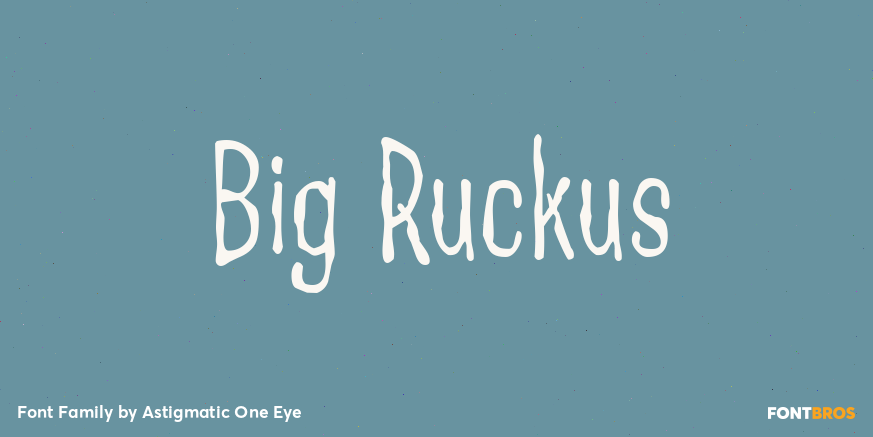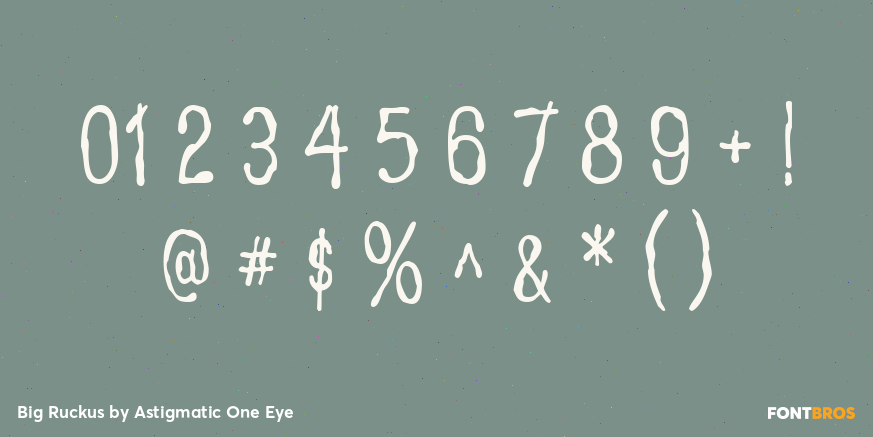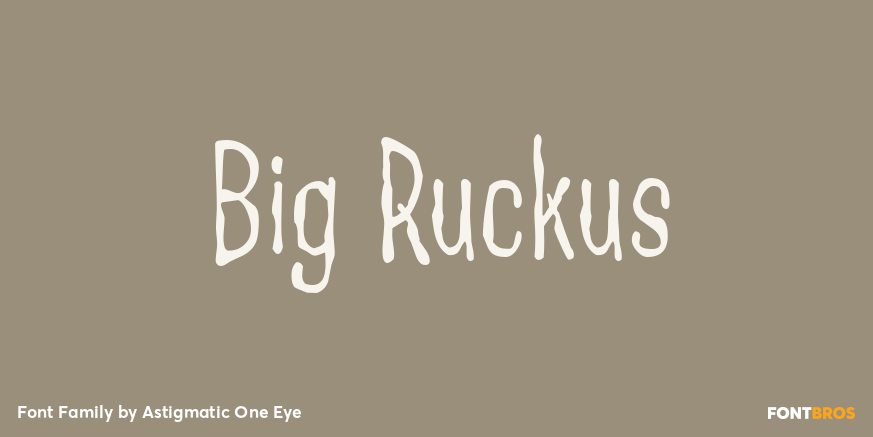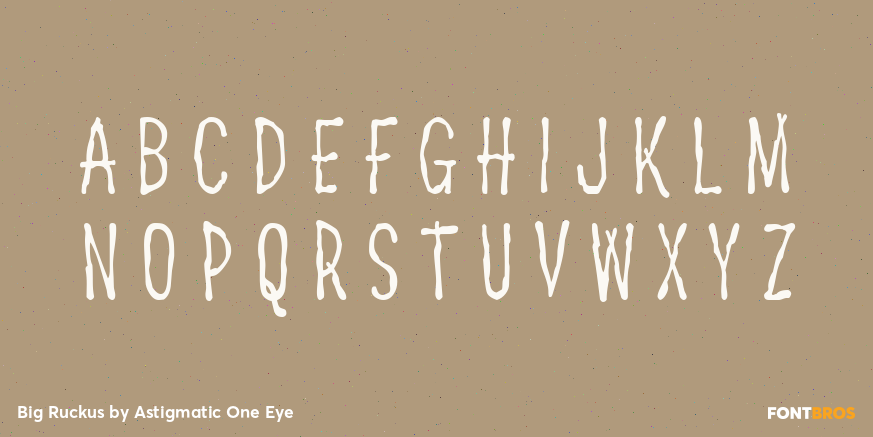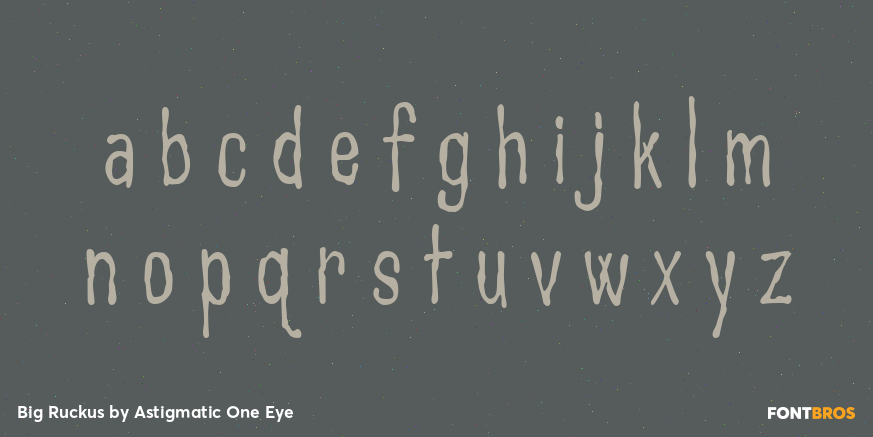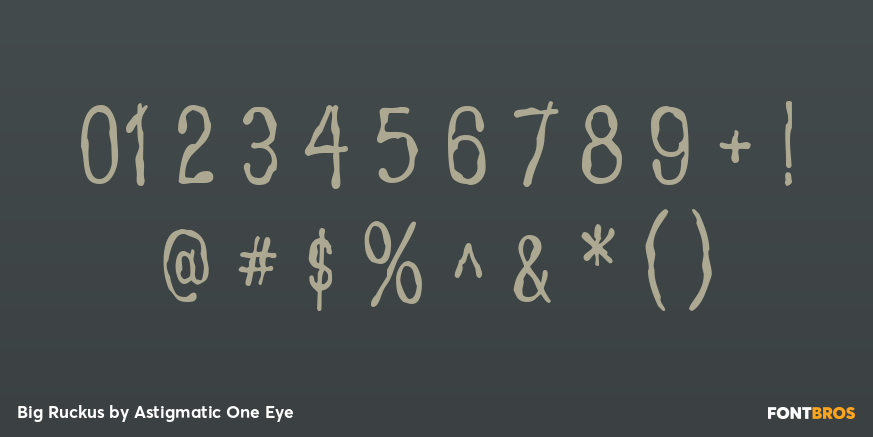
Big Ruckus
Font Family by Astigmatic One Eye
Big Ruckus is a casual, comic-inspired display face with a fun, warbled look that gives lettering an energetic, offbeat personality. Its handmade feel keeps things loose and expressive, making it a strong choice when you want type that looks lively rather than polished or rigid.
This family includes 1 font style by Astigmatic One Eye. Big Ruckus is especially well suited to playful posters, attention-grabbing headlines, quirky branding, informal packaging, and decorative display work that benefits from a distressed, handwritten edge.